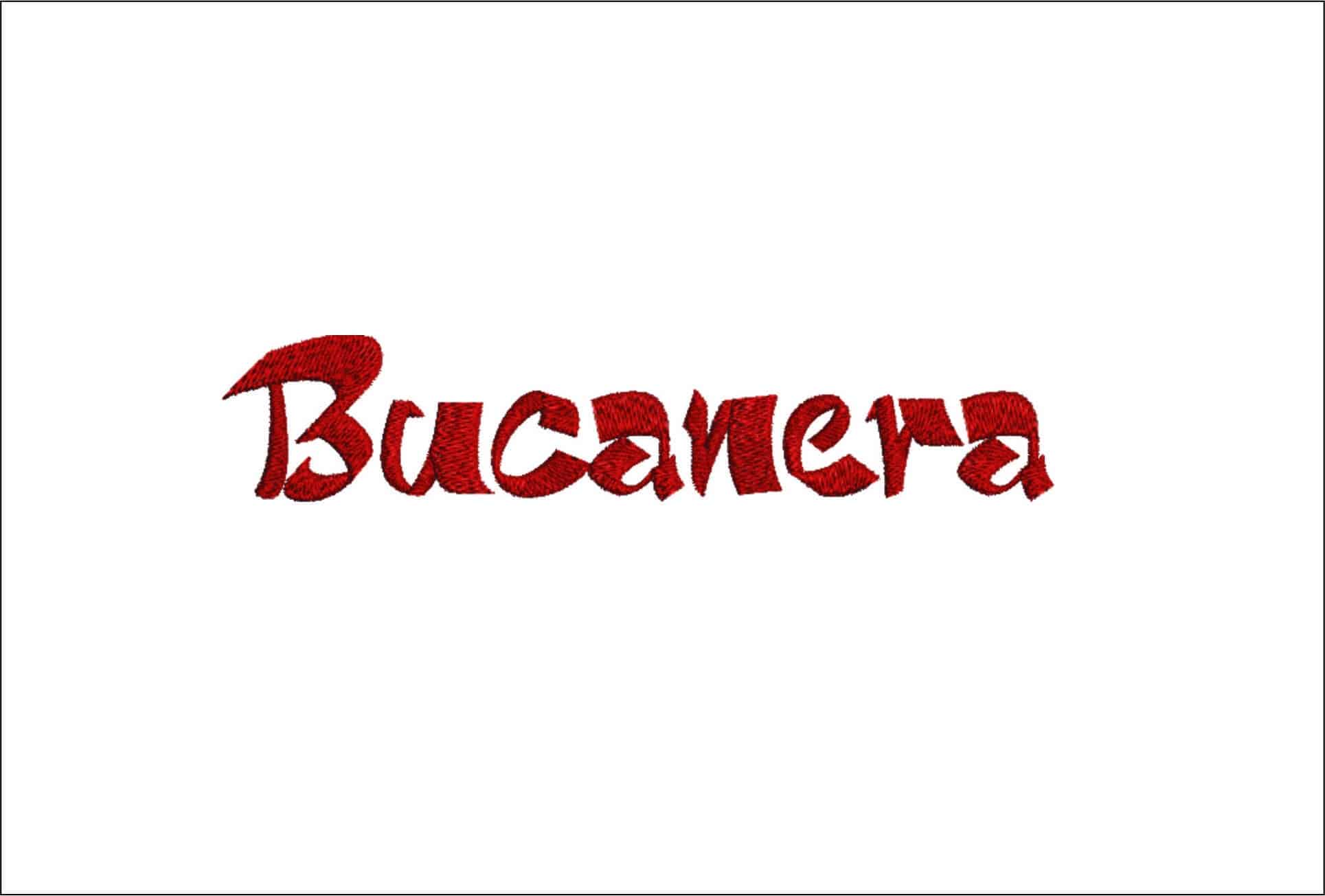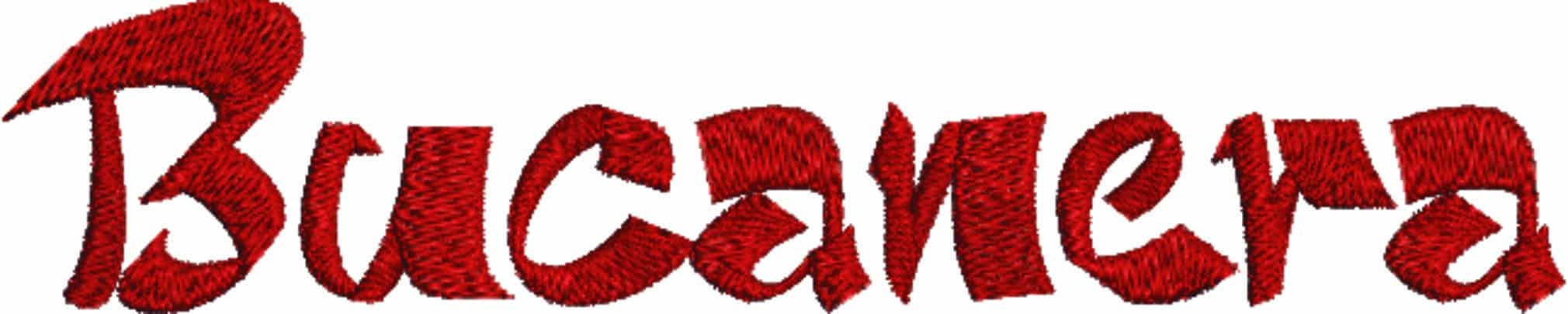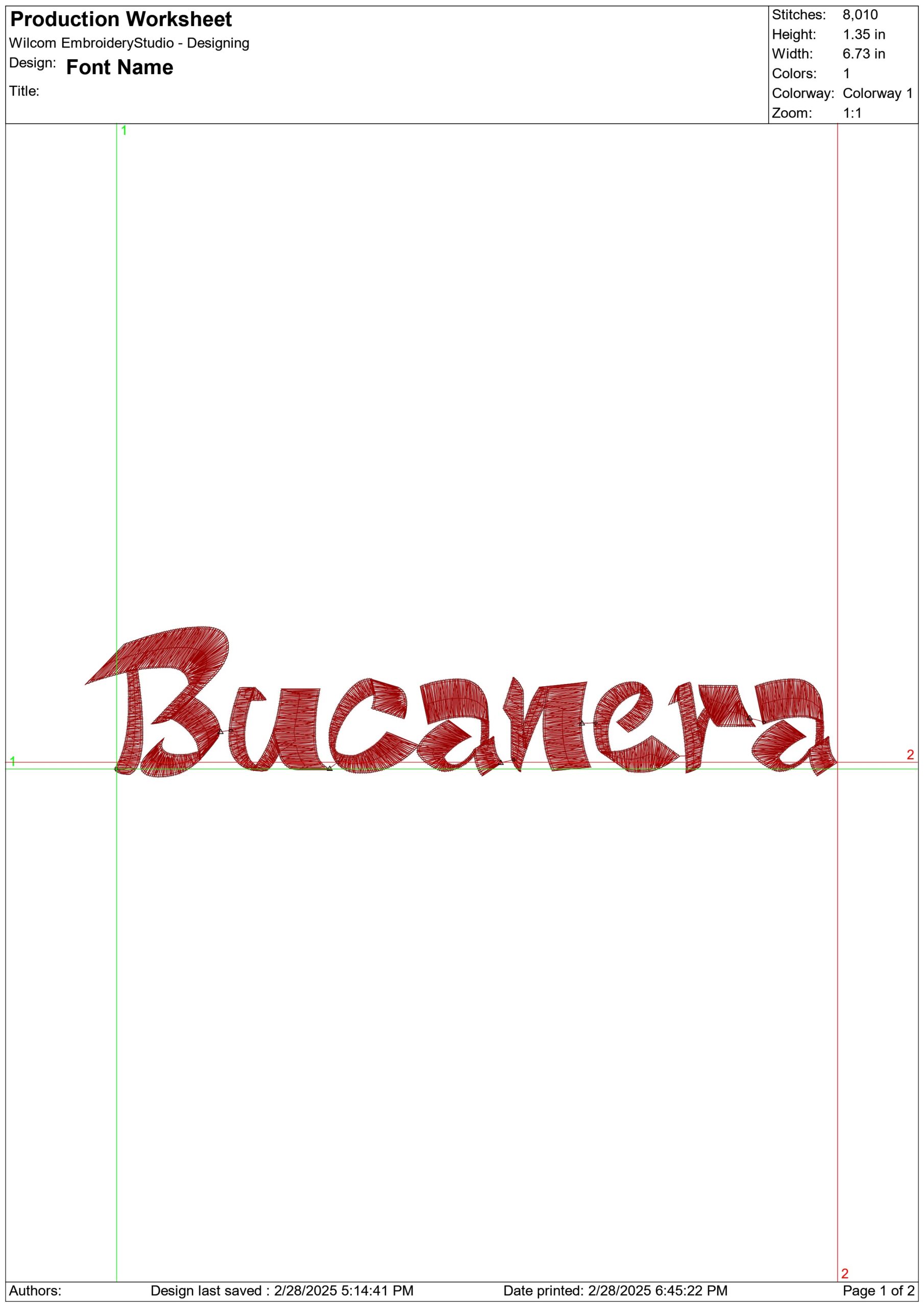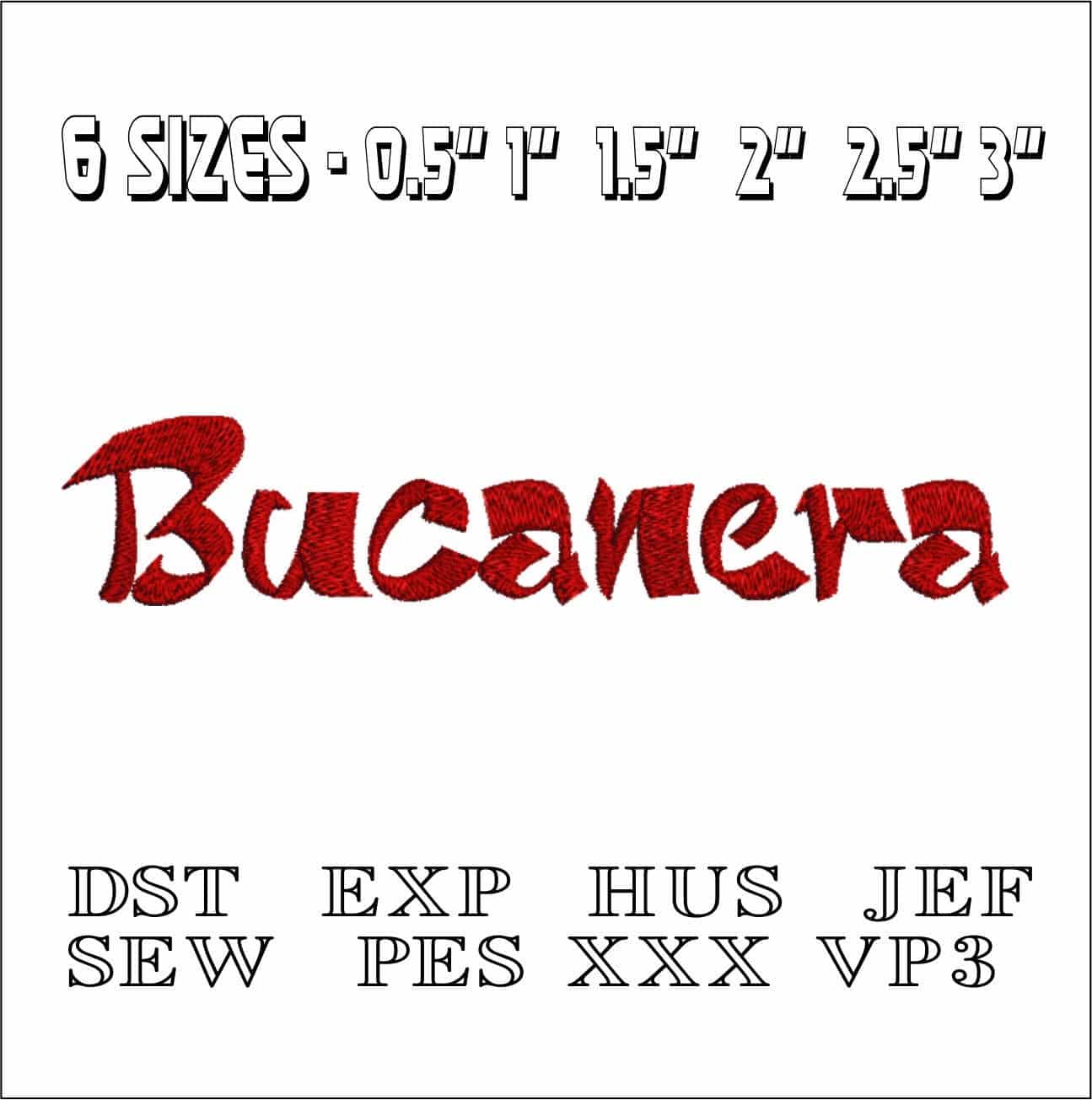
Bucanera Font Embroidery Font Set - 0.5" 1" 1.5" 2" 2.5" 3" - Machine Embroidery Alphabet Font - instant download
Bucanera Font Embroidery Font Set - 0.5" 1" 1.5" 2" 2.5" 3", Individual Alphabet Font - instant download
This is such a great alphabet for names and sayings! Beautiful and classy! Also available in larger sizes:
6 sizes are included.
Large - 2.5, 3 inch
Medium - 1.5, 2 inch
Small - 0.5, 1 inch
All sizes approx